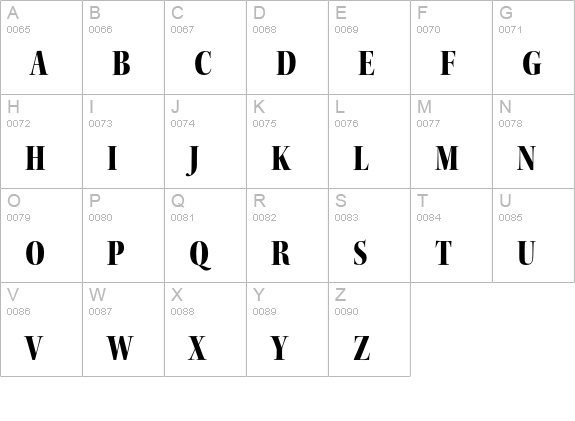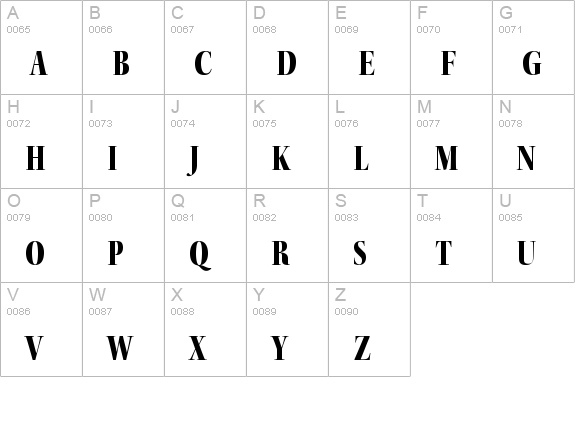
Kepler Std Black Condensed Display is a maximum-weight, dramatic, condensed-width variant in the Kepler typeface family \xE2\x80\x94 well suited to maximum-impact headlines, posters, and packaging.
Kepler Std Black Condensed Display font is a bold and impactful typeface that commands attention with its sleek and modern design. With its condensed letterforms, this font is perfect for creating eye-catching headlines, titles, and branding materials. The strong and geometric structure of Kepler Std Black Condensed Display font exudes a sense of confidence and professionalism, making it ideal for corporate and business-related projects. Its bold weight ensures high legibility even at smaller sizes, making it versatile for various design applications. This font is not only visually striking but also offers a practical advantage - it is freely available to download at FontsMarket.com. By accessing this font for free, designers and creatives can enhance their projects without any financial constraints. Whether you're working on a website, advertising campaign, or any other design project, Kepler Std Black Condensed Display font is a powerful tool that will elevate your work to new heights. Its elegant and bold aesthetic, combined with its accessibility, makes it a must-have for any designer's toolkit. So why wait? Download Kepler Std Black Condensed Display font for free at FontsMarket.com and let your creativity shine.